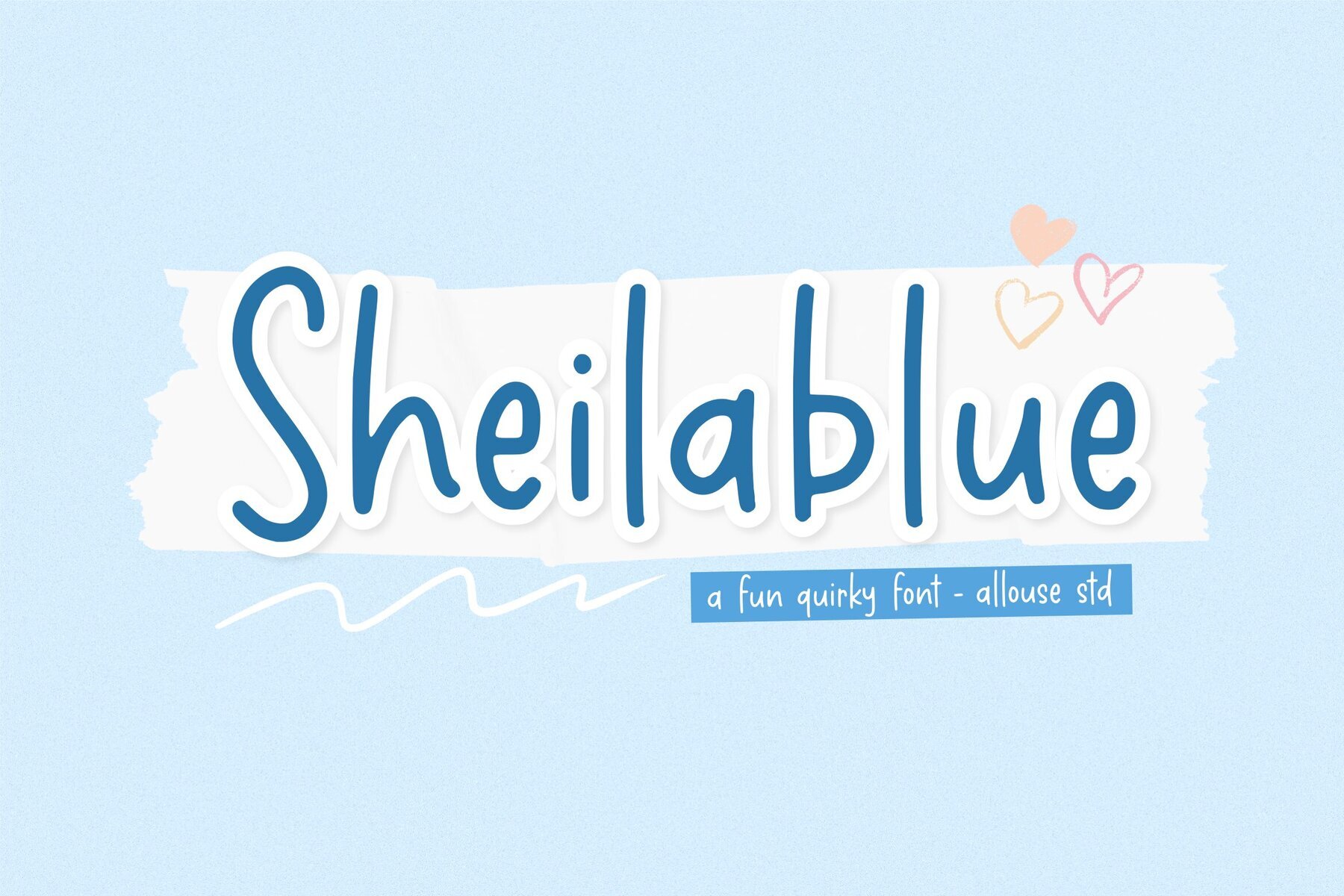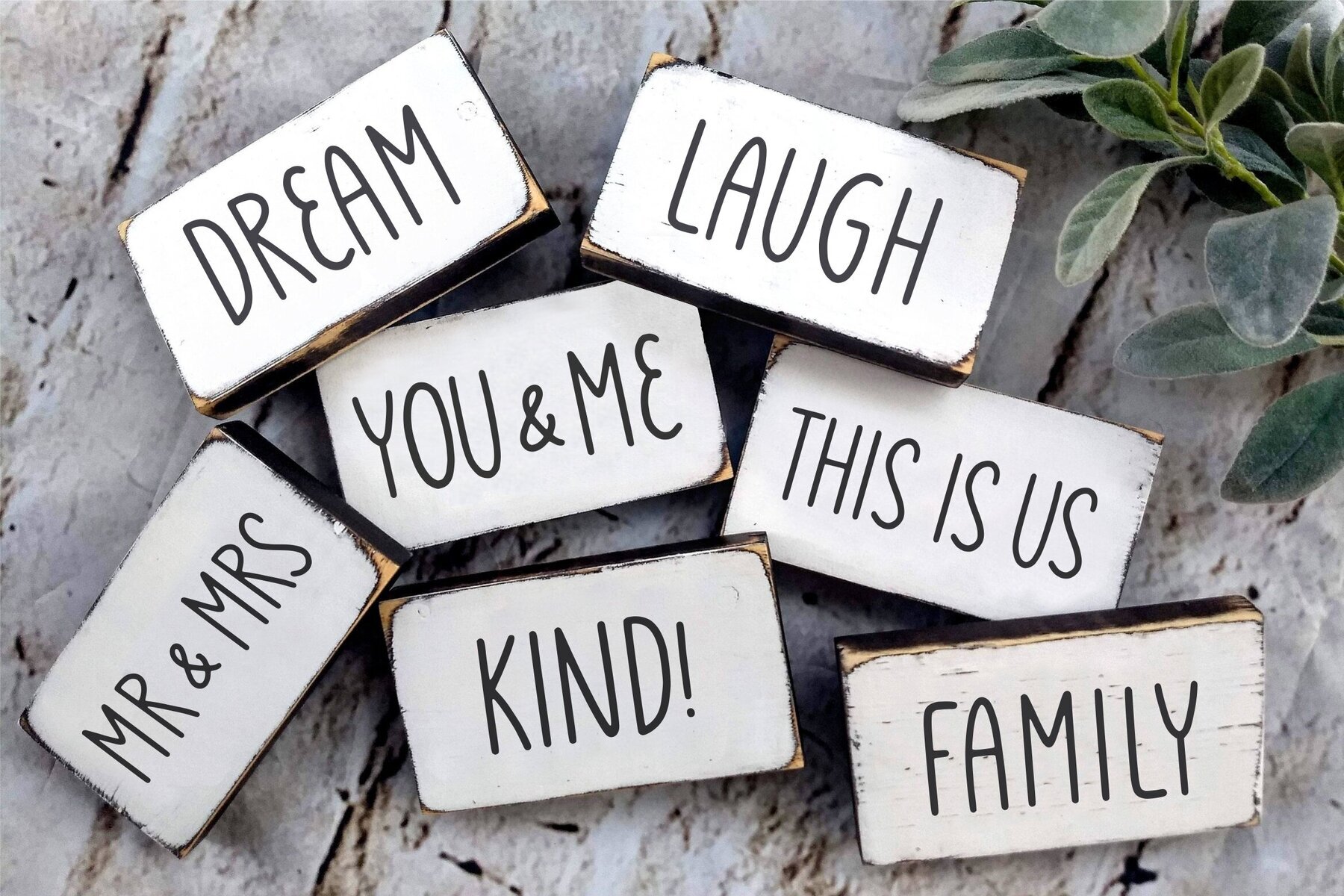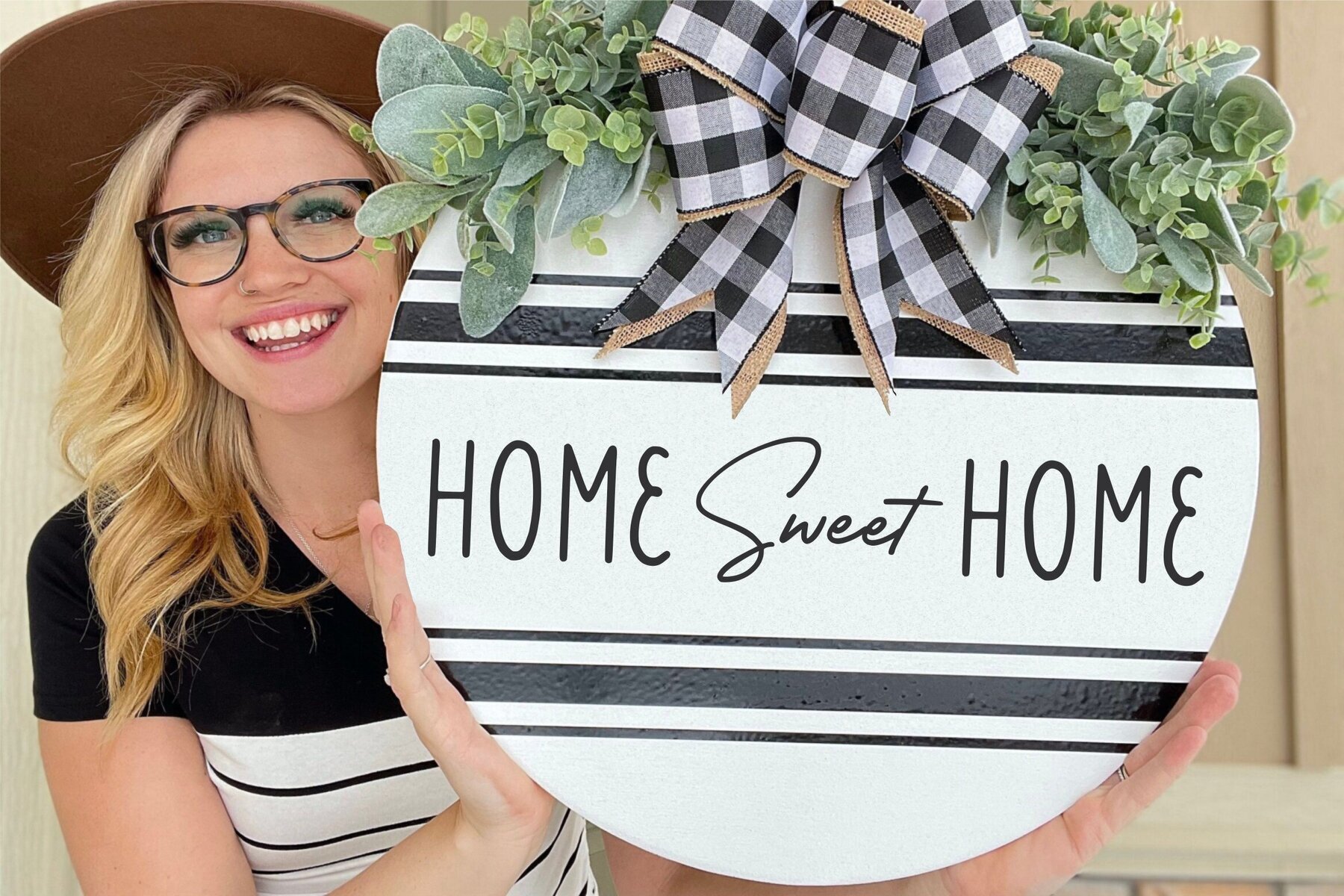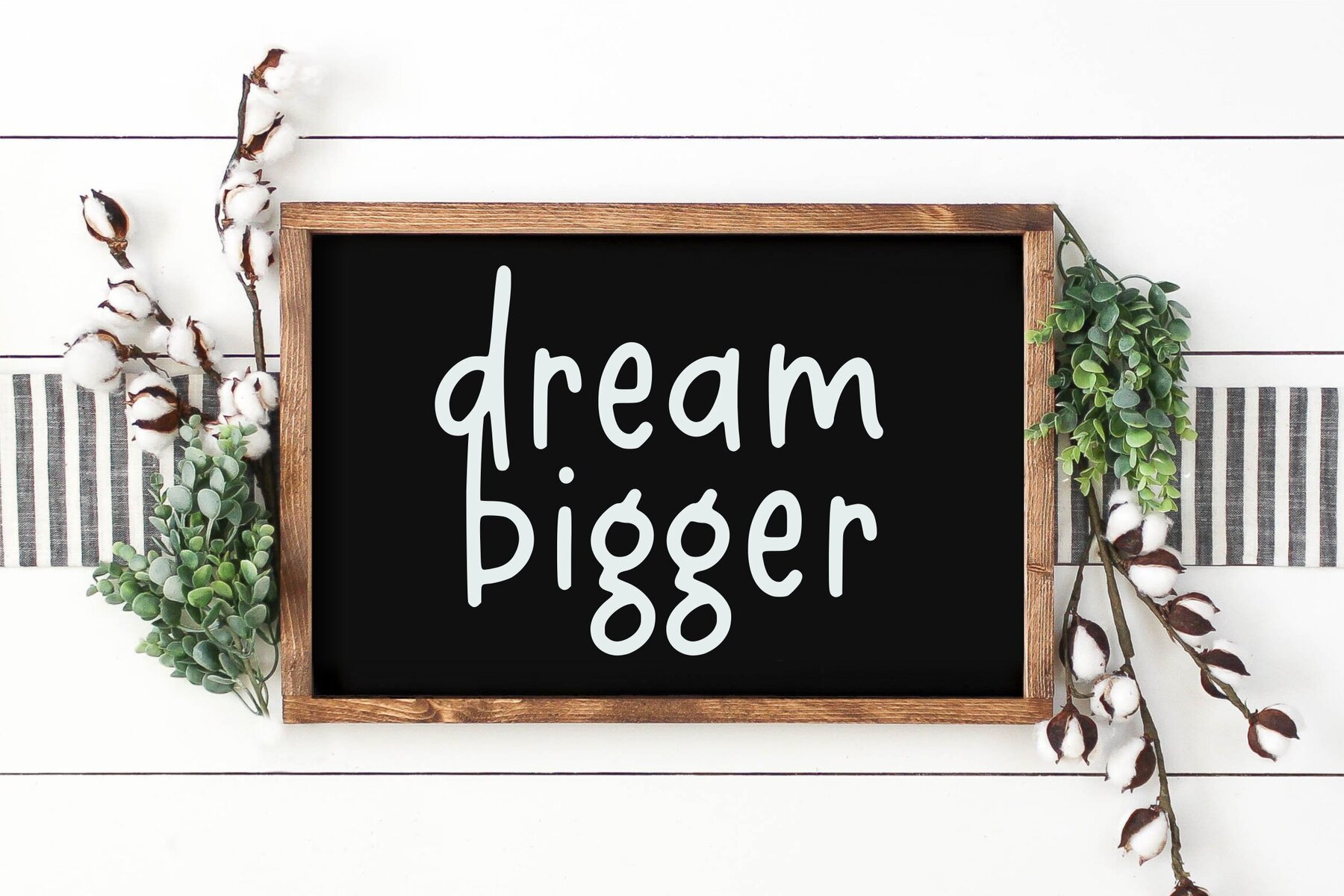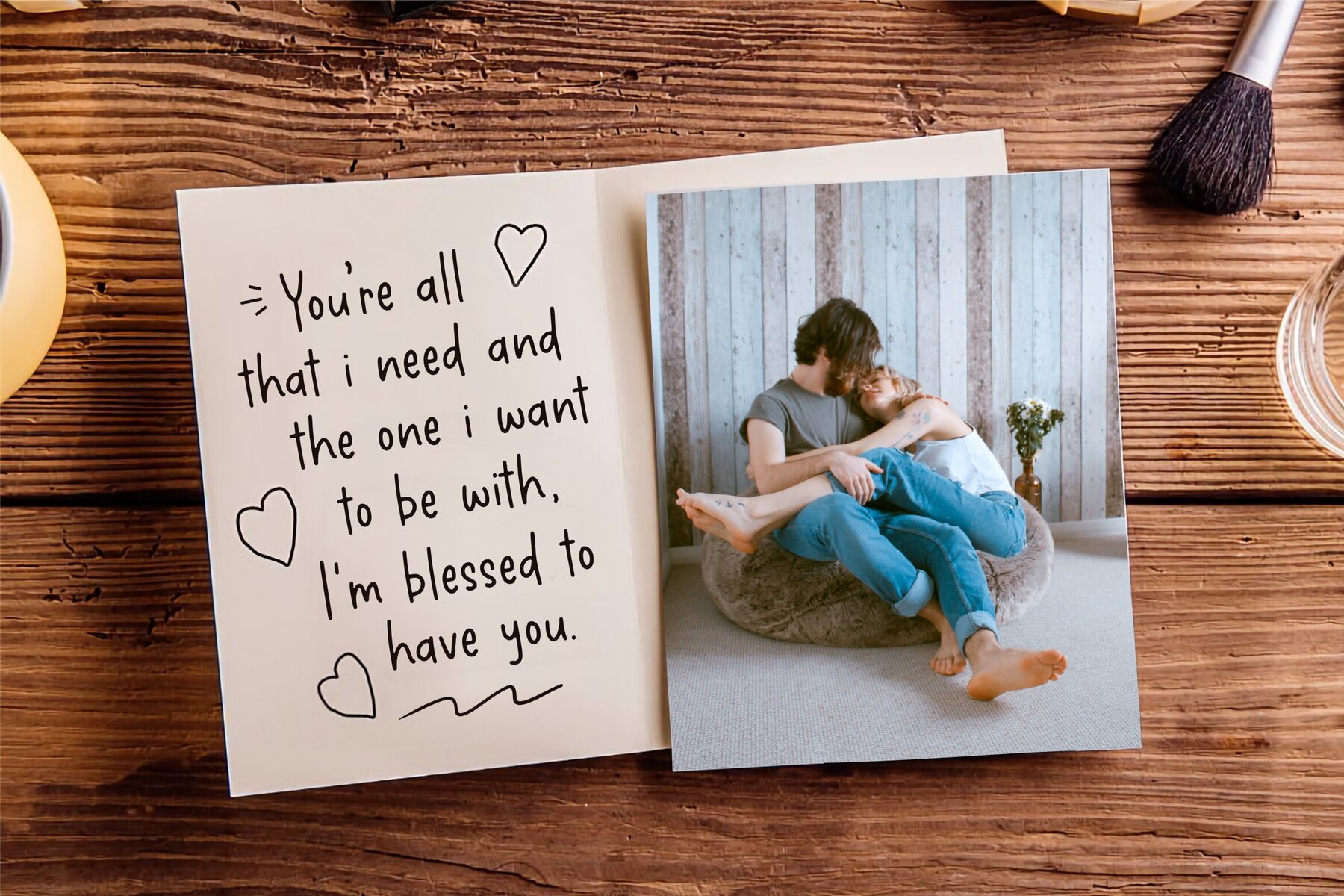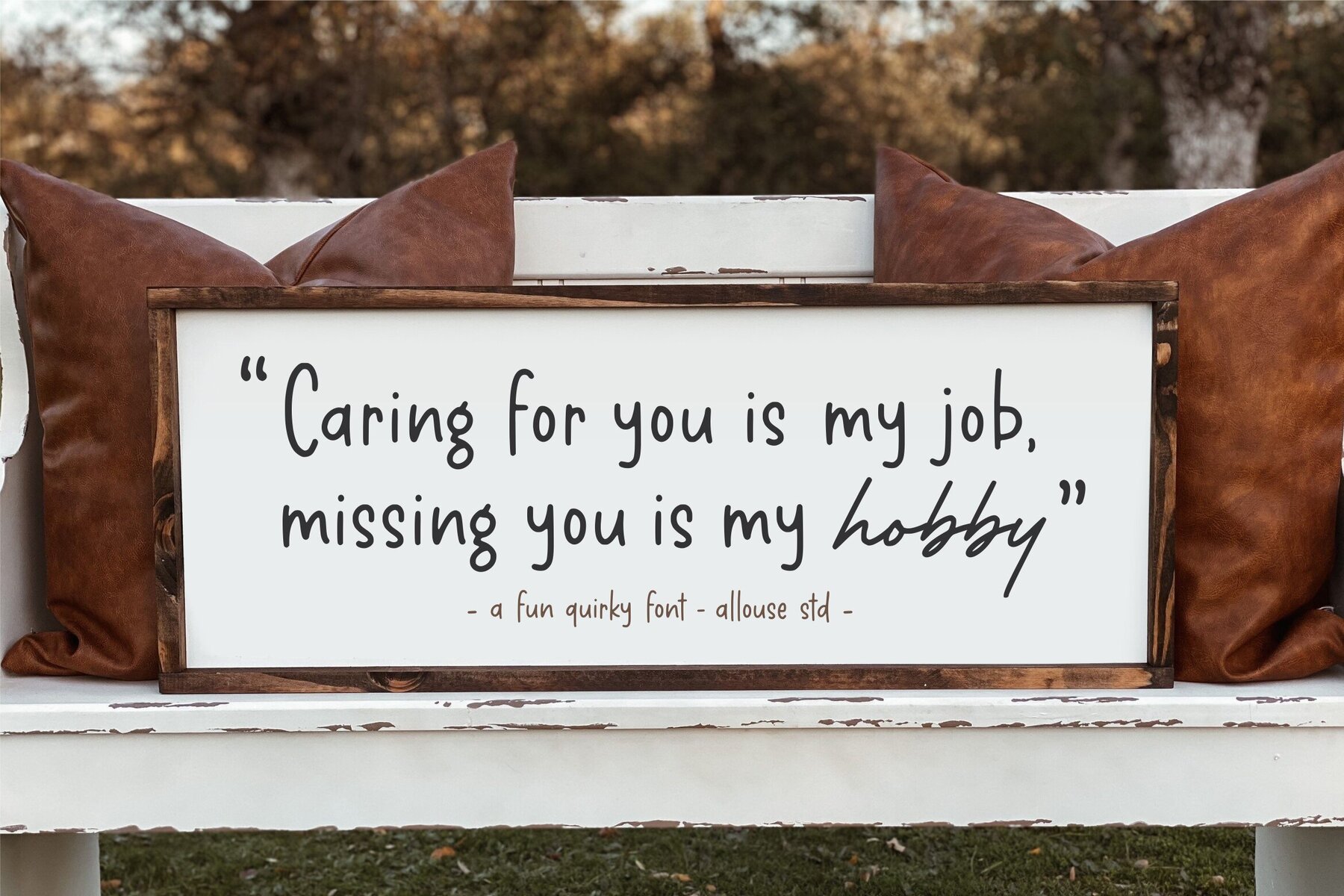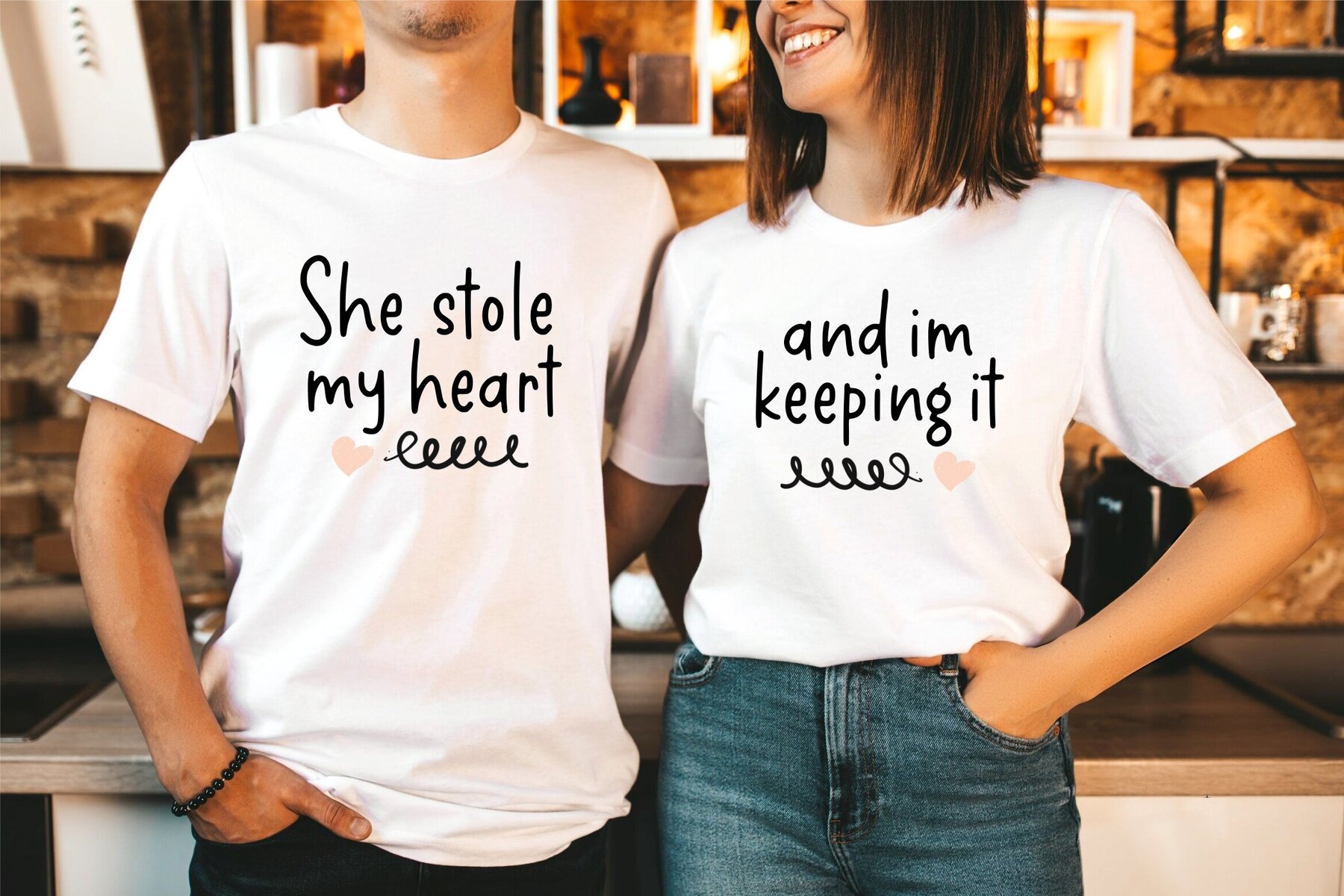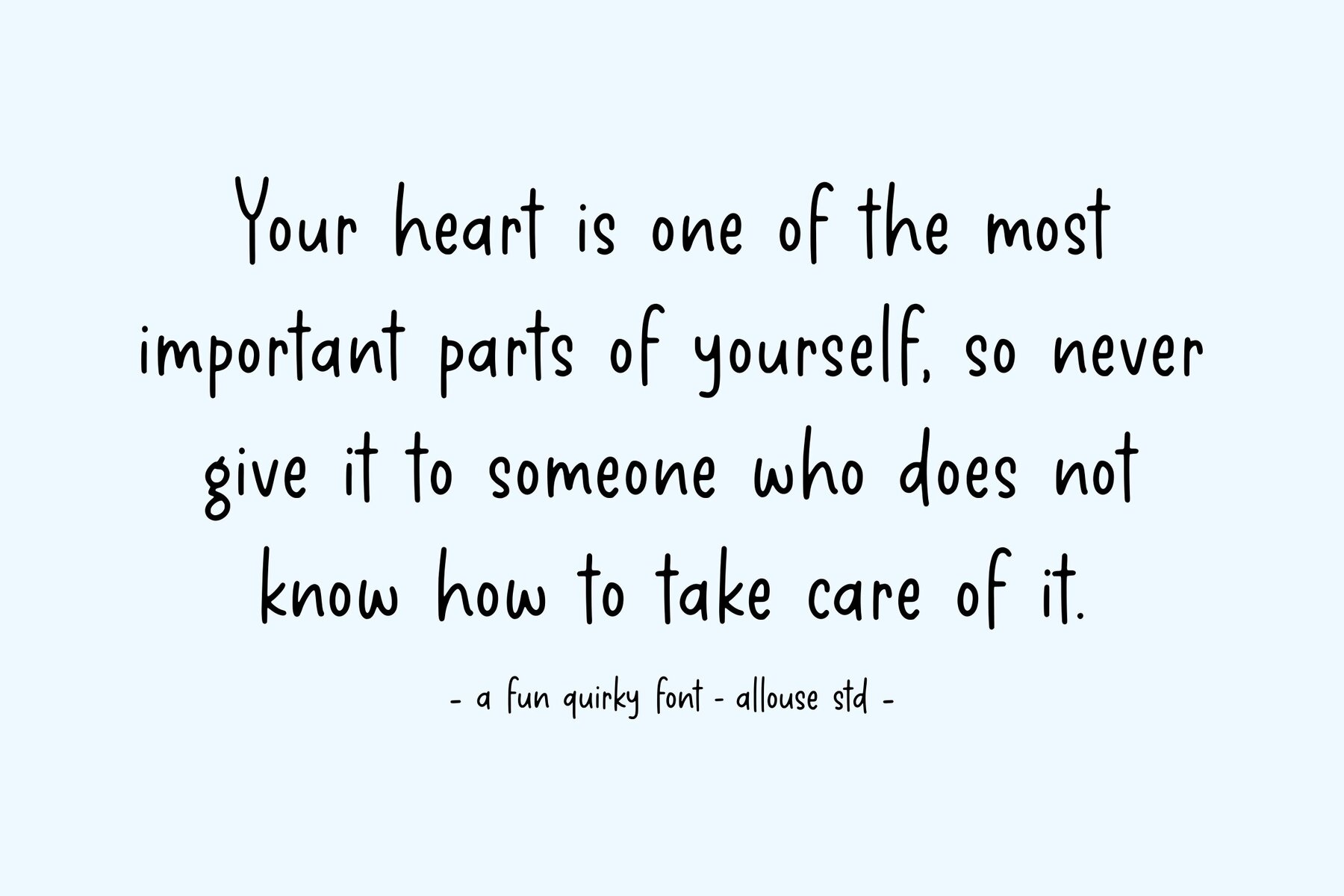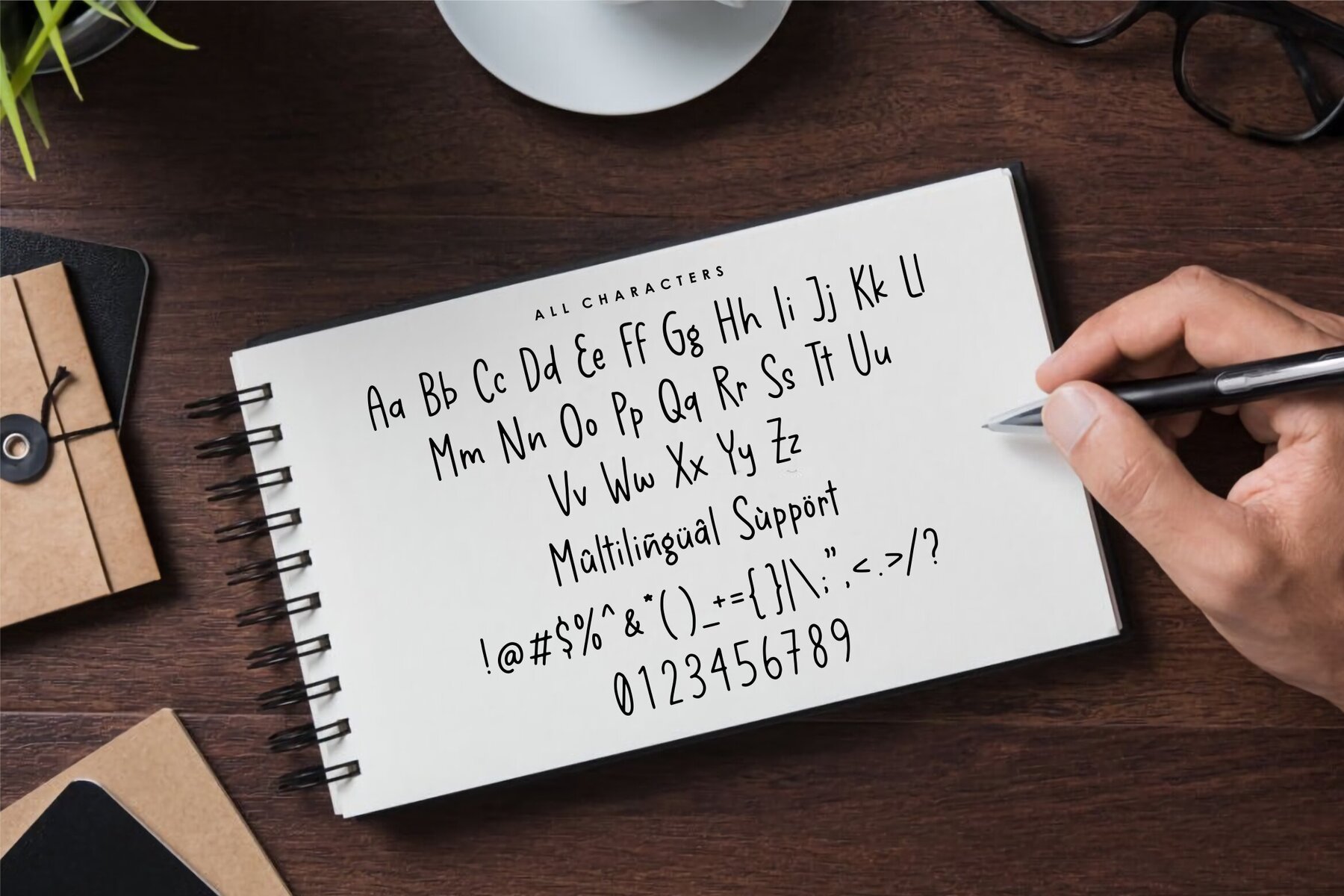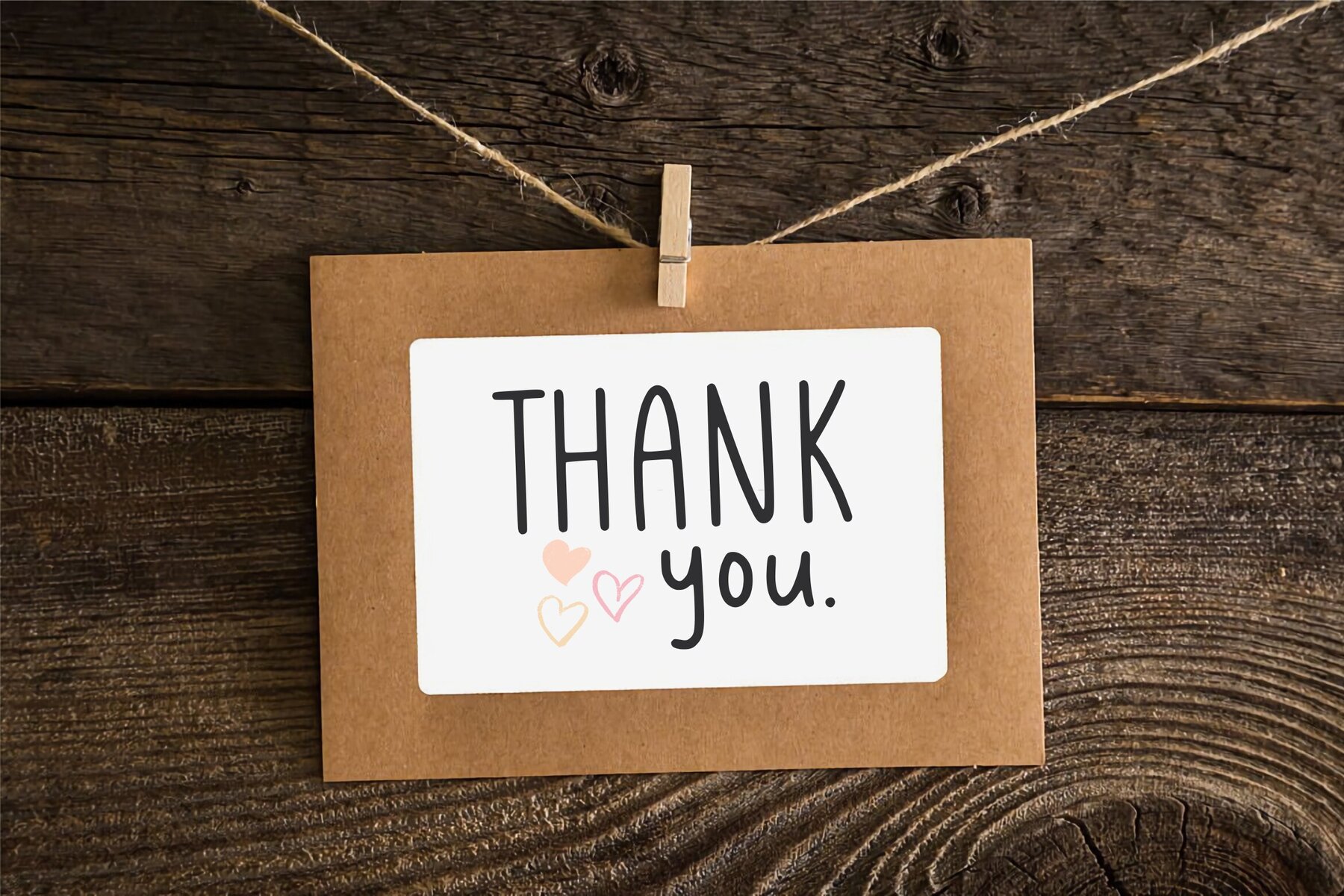
Sheilablue Font
Sheilablue Regular
Sheilablue embodies fun and creativity, making it an excellent choice for a variety of design applications. This font is well-suited for product packaging and branding projects, ensuring your designs capture attention with a friendly and unconventional style. Beyond branding, Sheilablue adds a unique flair to magazine layouts, social media graphics, and even wedding invitations, making each word stand out beautifully against any backdrop.Sheilablue: A Playful and Quirky Typeface